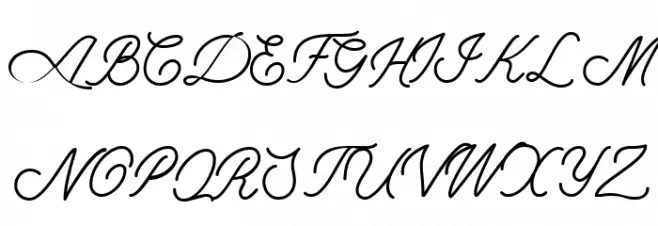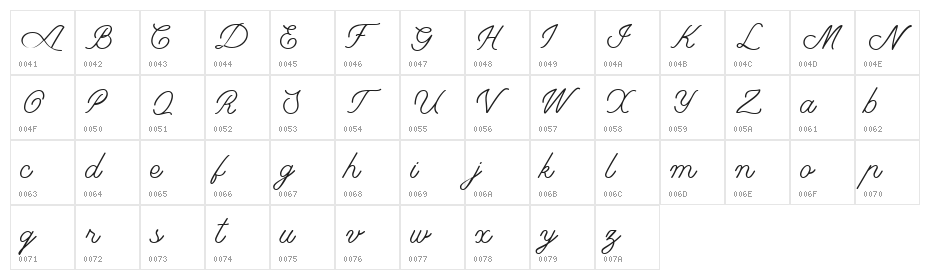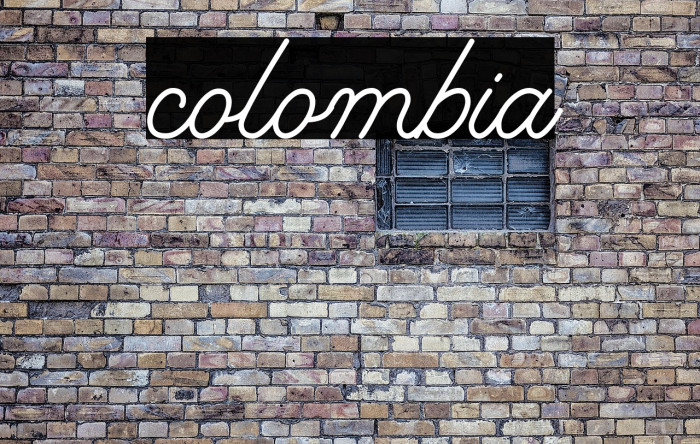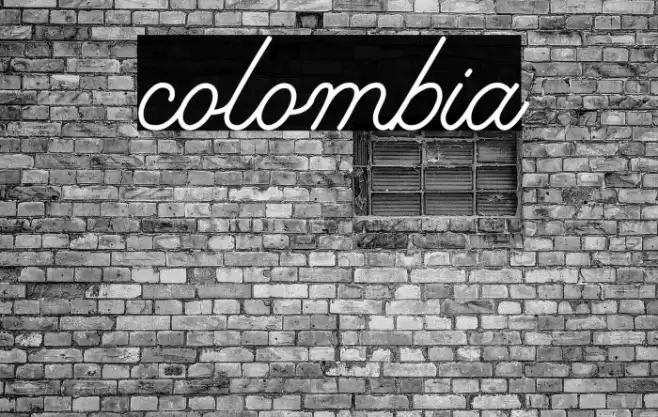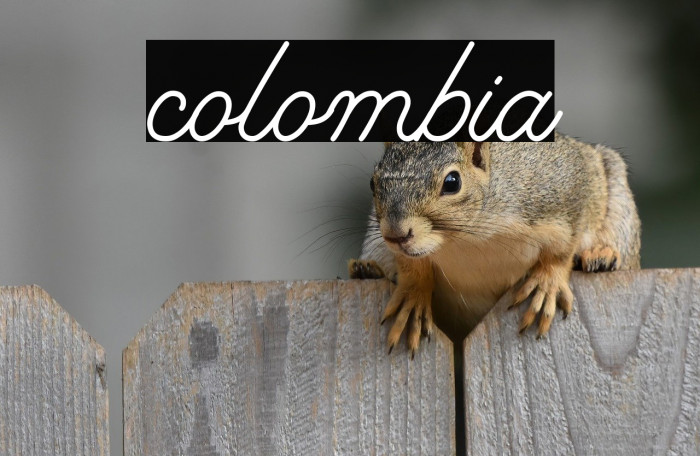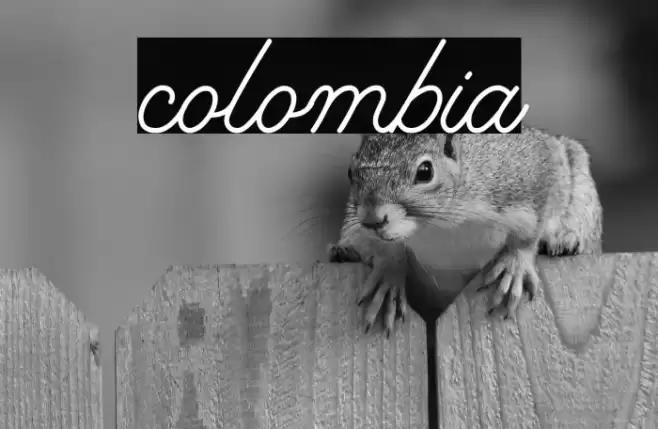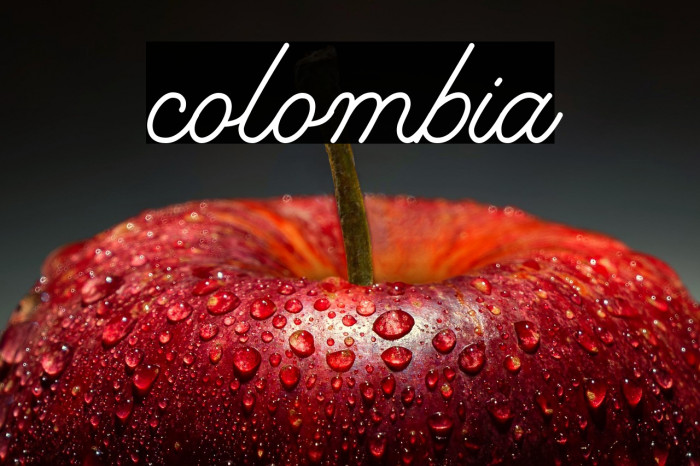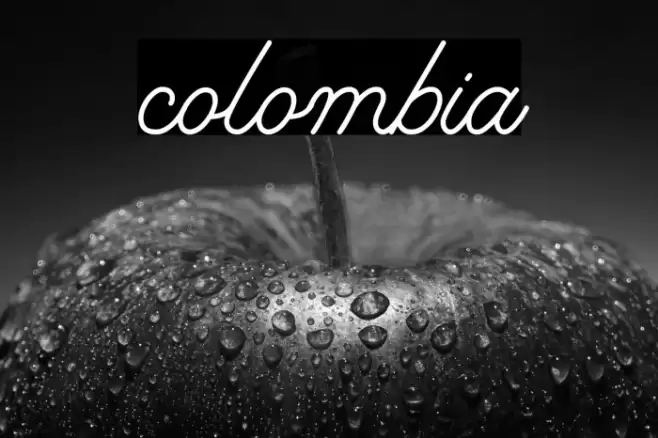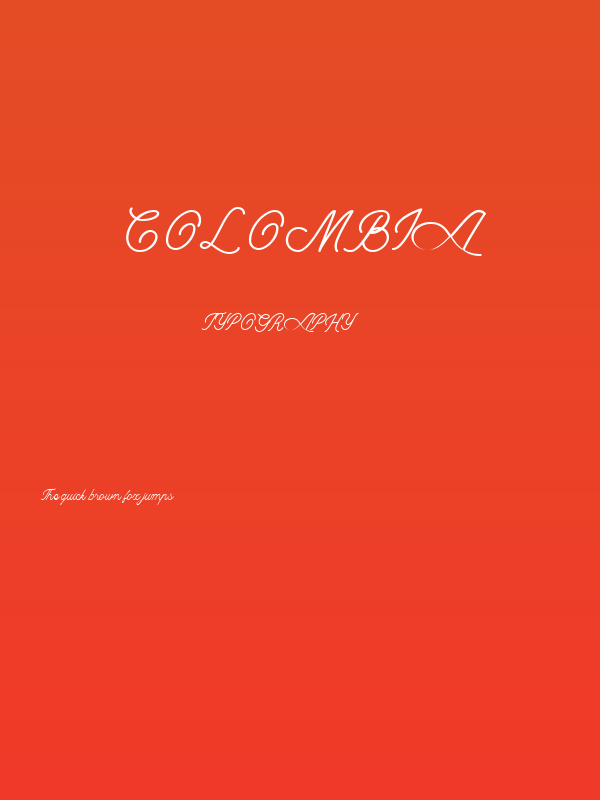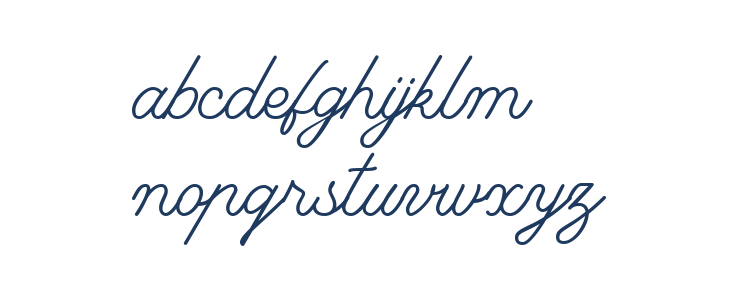
colombia Font
colombia Description
This elegant script font features flowing, interconnected letters with a classic and sophisticated appearance. The uppercase letters are ornate, with graceful loops and swirls, while the lowercase letters maintain a smooth, cursive style. The font exudes a sense of refinement and tradition, making it ideal for formal invitations, certificates, and branding that requires a touch of elegance. The characters are well-balanced, with consistent stroke widths that enhance readability while maintaining an artistic flair.
| Use Case | Headlines, Invitations, Branding |
| Proposed Projects | Ideal for wedding invitations, formal event programs, elegant branding, and luxury product packaging. |